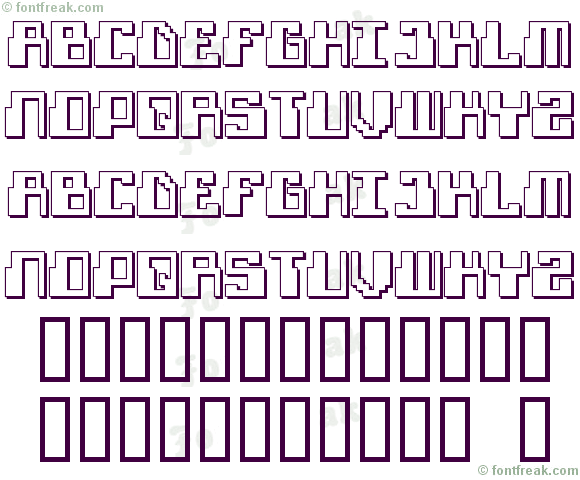
Futurism
The Futurism font by Pizzadude is a striking display typeface that embodies a modern aesthetic, making it an excellent choice for various design projects. This font is characterized by its bold, geometric shapes and sharp angles, reflecting a contemporary style that resonates with the principles of futurism. The stroke weight is consistent, providing a solid appearance, while the lack of excessive contrast allows for clear legibility. The spacing between characters is well-balanced, ensuring that each letter stands out without feeling crowded. The overall design is minimalistic yet eye-catching, with a distinct angularity that adds a dynamic quality to text.
Ideal use cases for the Futurism font include movie posters, where its boldness can capture the attention of viewers; tech product advertisements that require a modern touch; branding for startups that wish to convey innovation; and artistic flyers for events or exhibitions that celebrate contemporary culture. Graphic designers, small business owners, and content creators will find this font particularly appealing, as it offers a unique visual identity that can elevate their projects.